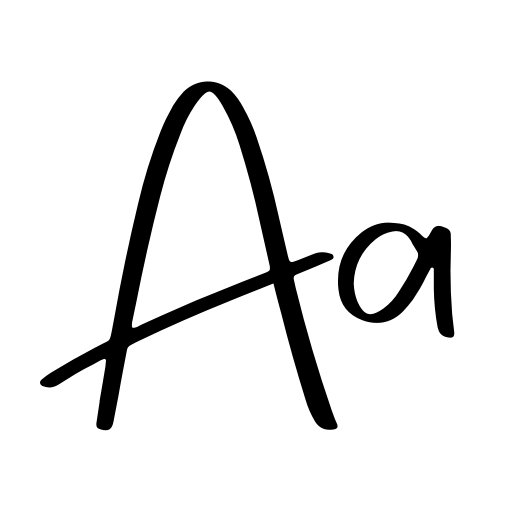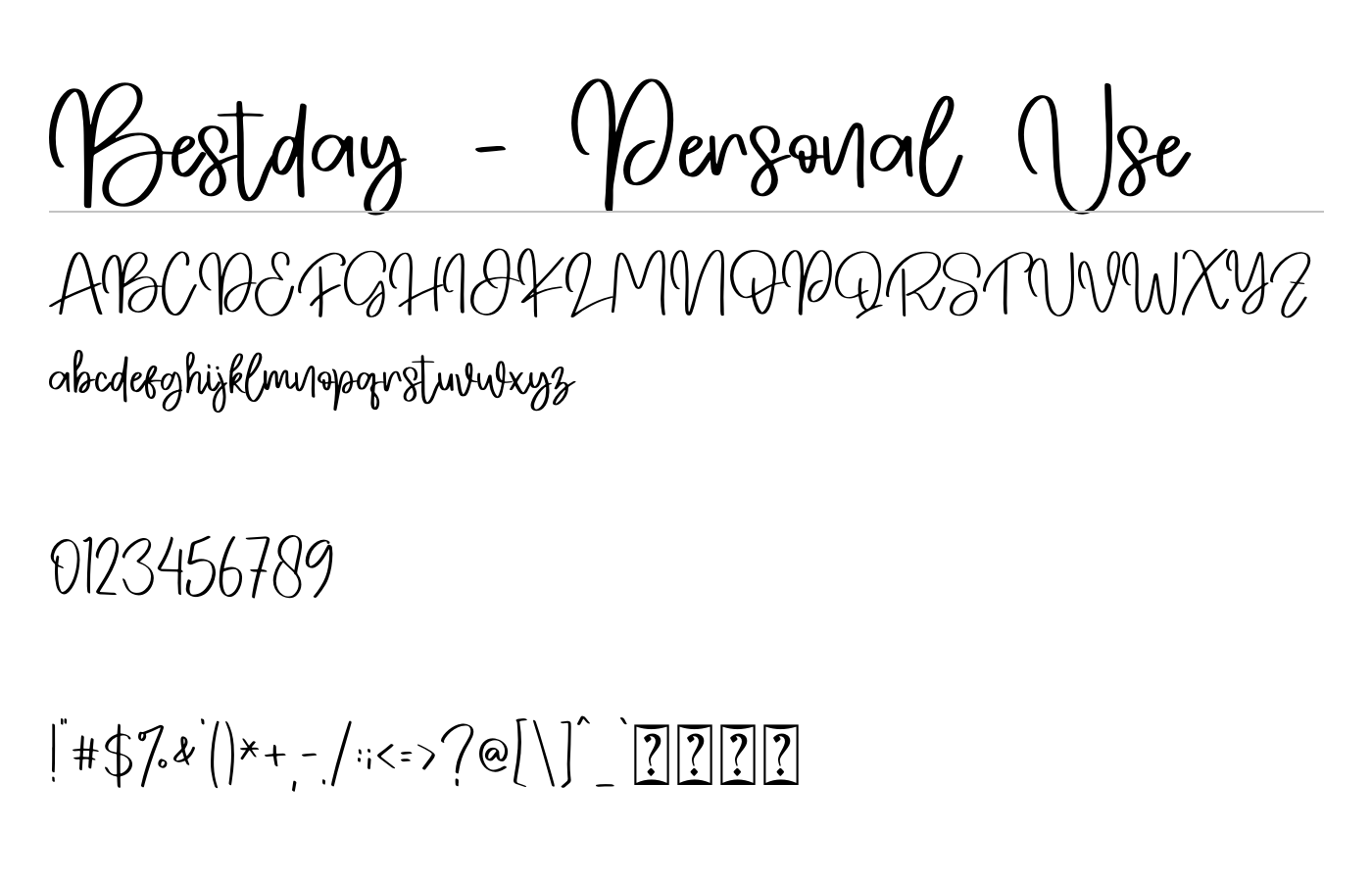
Bestday is a playful, hand-drawn script font with a casual and lively feel, featuring tall, slender letterforms with smooth, flowing strokes. Its informal style and delicate lines make it perfect for creative projects like invitations, branding, and social media graphics where a friendly, personal touch is desired. This font works best in designs aiming for a handwritten, approachable look that invites warmth and creativity.
Bestday - Personal Use Font